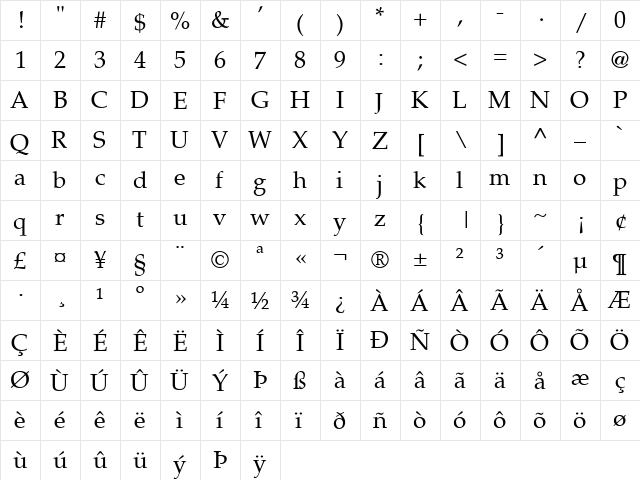
PalmSprings Regular
Design Context for PalmSprings Typeface
PalmSprings takes a measured approach to typography — its balanced proportions and neutral character make it a reliable workhorse for both digital and print work.